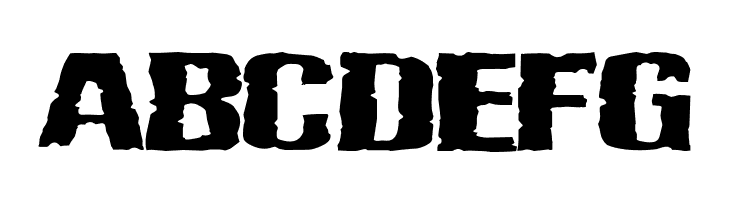
Positive Nhilism Font
( Fonts by Fabrika De Typos - Marcio Hirosse - fabrikadetypos.blogspot.com )
A bold, distressed font with a grunge, industrial aesthetic.